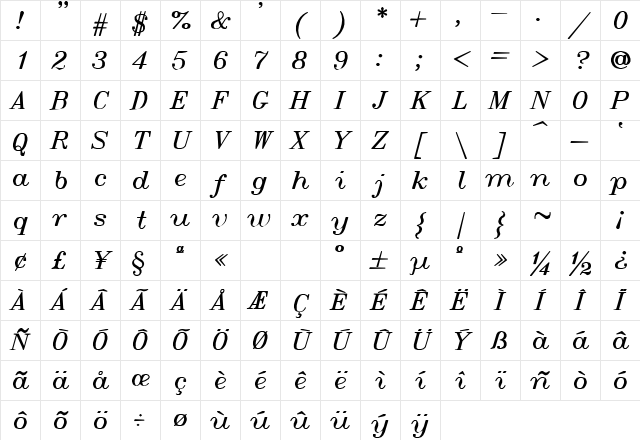
SWItalt Regular
Design Context for SWItalt
SWItalt is a composed and adaptable typeface that performs quietly and consistently across a wide range of design contexts.